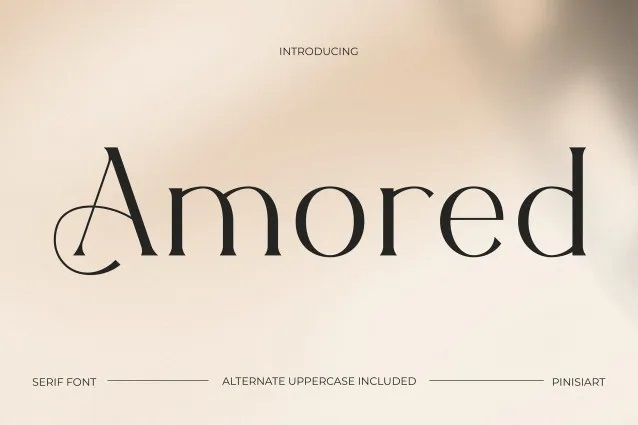
Amored Font
Amored is a Serif Font. This font is a blend of minor curves with beautiful strokes that provide any work with a classic and contemporary appearance. In addition, the graphicity of accents is a great choice of font in contrast to the fragile lines. The alternating capital letters actually emphasize the real thing, and you can play around with the styles. That gives you the ability to adjust your design to bold, delicate or lavish, whichever way you would like it to be.
Moreover, Amored is easily adapted to digital and print. You can use it on Instagram posts, branding campaigns, fashion packaging, wedding invitations or editorial layouts. It is hence a professional design tool and a creative one. As an illustration, a basic caption is turned into a luxurious image when you apply it to social media.
Amored Serif Font